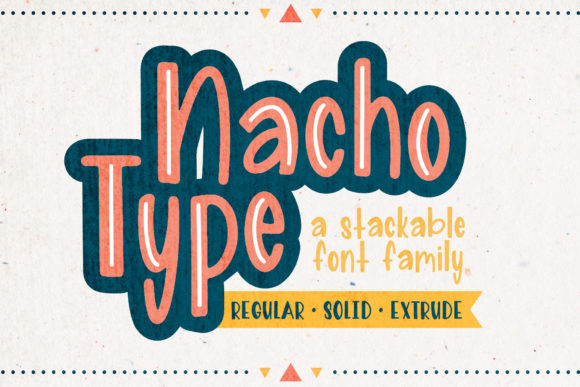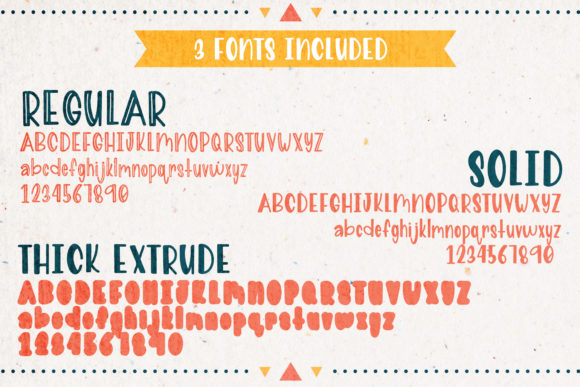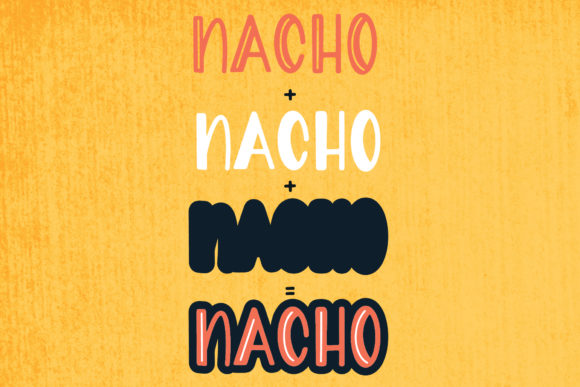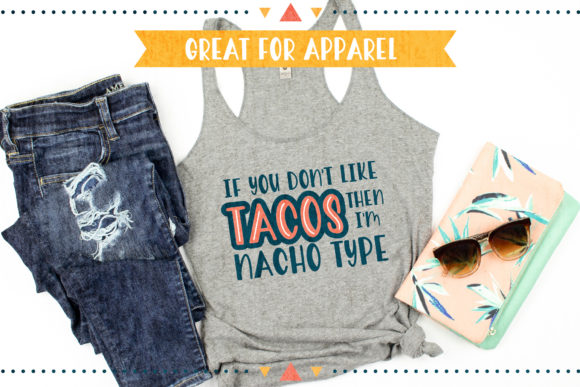
Nacho Type Font: A Playful & Stackable Sans Serif for DIY Projects
About the Nacho Type Font
The wait is over! The incredible Nacho Type Font is now available for your design toolkit. Nacho Type is a hand-lettered feminine layered sans serif font family. It is perfect for all of your design work including holiday decorations, cinco de mayo t-shirts, Easter baskets and mugs, party banners, kids back to school school activity sheets, or print on demand products to name a few.
Great for any DIY project or cutting machine design such as welcome home and birthday banners.
Nacho Type’s playful, layered style works best in headlines, short text blocks, and branding applications where a hand-crafted, feminine touch is desired. It’s ideal for projects targeting a young, vibrant audience, such as children’s products, party invitations, and social media graphics. However, its decorative nature makes it less suitable for body text or UI elements requiring high legibility.
For optimal visual balance, pair Nacho Type with a clean sans-serif like Open Sans for body copy or a more geometric sans-serif such as Futura for a modern contrast. A script font with a similar level of playfulness could also work well, depending on the overall design goal.
The font exudes a friendly, approachable energy. Its hand-lettered quality adds a personal touch, making it perfect for brands emphasizing warmth and approachability.
Nacho Type Font Usage Examples